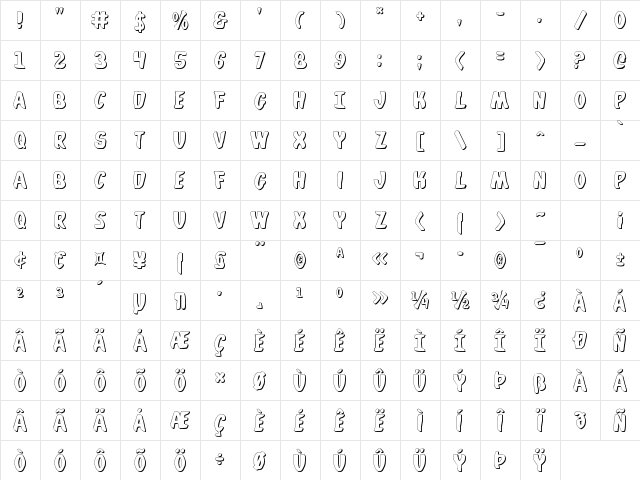
Whatafont Shadow Shadow
Style: Shadow
Design Context for Whatafont Shadow
Whatafont Shadow is built around its visual character rather than neutral utility - its distinctive forms are designed to make an impression at display sizes.
Font Pairing: Pair with a clean neutral sans-serif for body copy to let Whatafont Shadow's character lead without overwhelming the composition.
Pro Tip: Use Whatafont Shadow exclusively at display sizes - it was designed to be seen, not read at length. Let a neutral companion handle body copy.